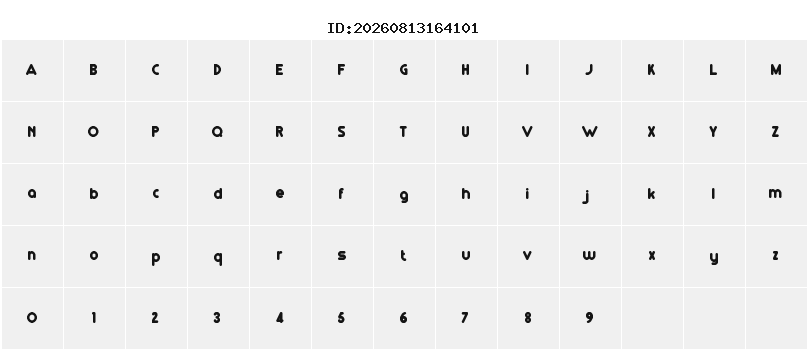
RM Playtime solid Preview
• Font Name: RM Playtime solid
• Full Font Name: RM Playtime solid Regular
• Designer: Ray Meadows
About RM Playtime solid.ttf
RM Playtime solid.ttf is a modern, elegant sans-serif font designed for ultimate readability and visual harmony. Perfect for branding, headlines, web design, and print materials.